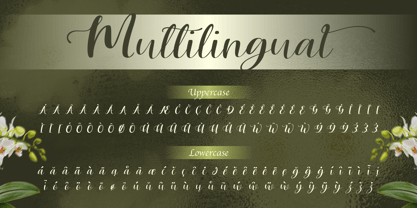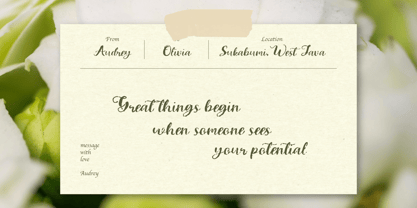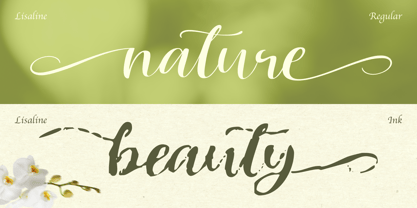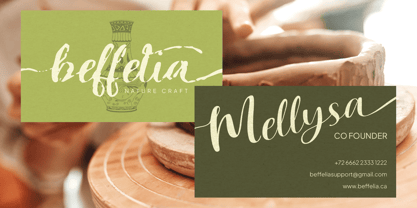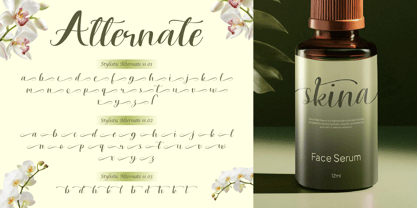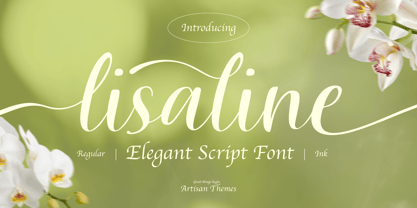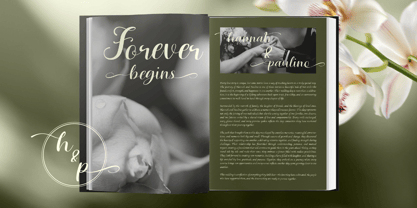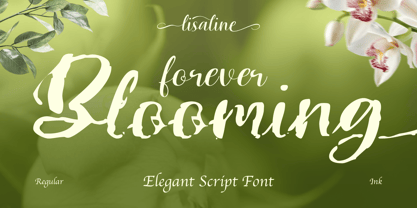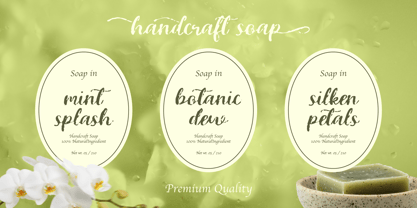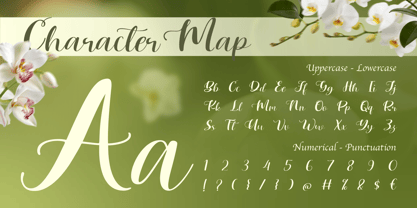
Lisaline
Die Schriftfamilie Lisaline wurde von Meidy Meichico entworfen und von Artisan Themes veröffentlicht. Lisaline enthält 2 Stile und Familienpaketoptionen. Mehr über diese Familie
Meet Lisaline, an elegant script font that blends soft femininity with a touch of expressive ink character. Designed to feel both graceful and organic, Lisaline flows beautifully like a handwritten signature—yet surprises you with its bold, artistic ink style.
This unique combination makes Lisaline more than just a pretty script. It gives your design personality—switching effortlessly from clean elegance to raw, handcrafted expression.
The regular style delivers smooth, romantic curves perfect for timeless designs, while the ink style adds a textured, slightly imperfect feel—bringing warmth, depth, and a natural handcrafted vibe.
Whether you're working on branding, packaging, or editorial layouts, Lisaline helps your design feel more alive, emotional, and authentic.
Perfect for: Wedding invitations & stationery, Beauty & skincare branding, Handmade / artisan product packaging, Logo design (especially feminine & organic brands), Social media quotes & content, Editorial layouts & magazine headlines, Café, floral, and wellness branding, Craft, pottery, and nature-inspired businesses, Brand handmade (soap, candles, pottery), Organic / natural product, Rustic wedding theme, Artistic / personal branding
Features: A - Z set (Uppercase & Lowercase), Number, Punctuation, Alternates, Multilingual
Designer: Meidy Meichico
Foundry: Artisan Themes